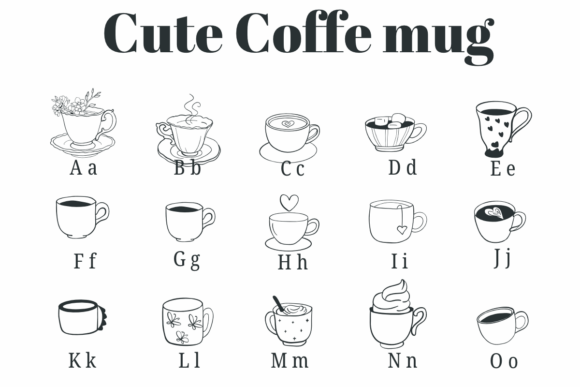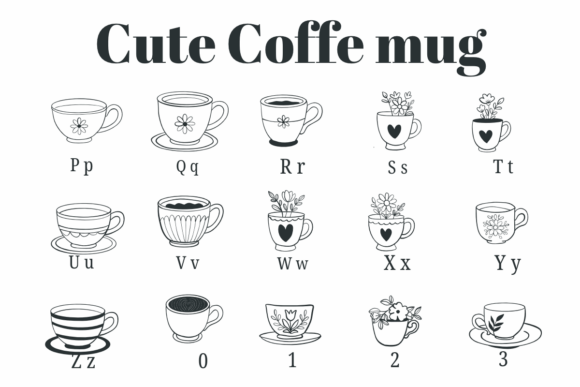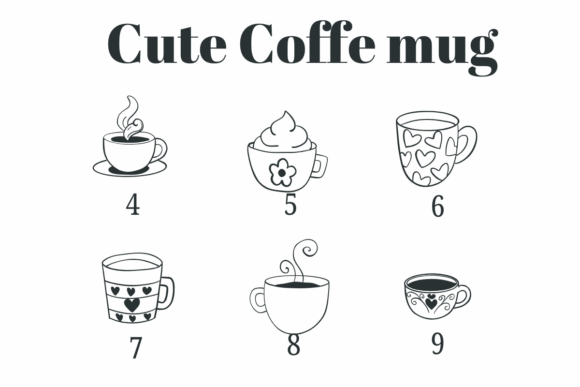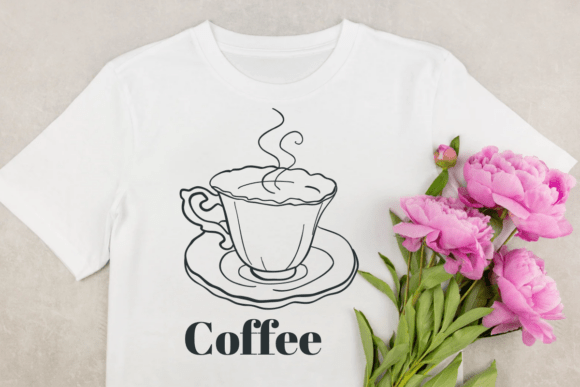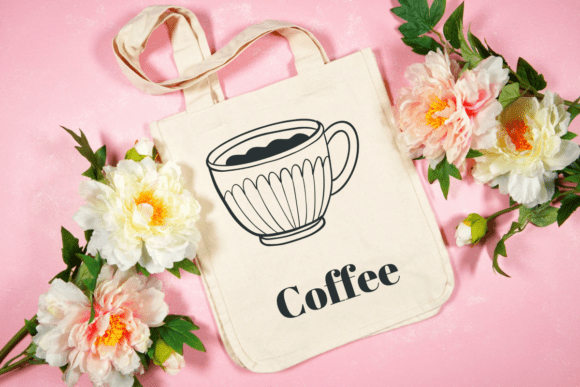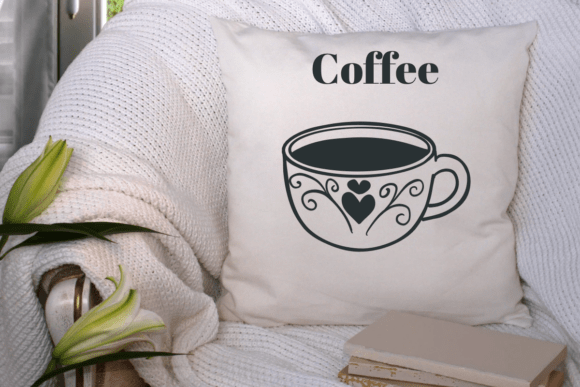
Warm Up Your Designs with the Cute Coffee Mug Font
I’ll never forget the time I was working on a branding project for a cozy coffee shop. My client wanted a font that would evoke the feeling of a warm cup on a chilly morning, but I was struggling to find the perfect fit. That’s when I stumbled upon the Cute Coffee Mug font, a delightful collection of hand-drawn illustrations that replaced standard letters with charming mugs, steaming cups, and ornate teacups. It was love at first sight! ❤️
A Cozy Dingbats Font for Designers and Caffeine Lovers
The Cute Coffee Mug font is a “Dingbats Font” designed to add an instant cozy, artisanal feel to any layout without the need for complex vector software. This font is perfect for cafe owners, caffeine lovers, and designers looking to add a touch of whimsy to their work. With its hand-drawn illustrations, the Cute Coffee Mug font features hearts, flowers, and dainty patterns that will make your designs stand out.
What I Love About the Cute Coffee Mug Font ✨
- ✅ The font is incredibly versatile and can be used for a variety of design projects, from bakery menus to kitchen-themed decor.
- ✅ The hand-drawn illustrations are adorable and add a touch of personality to any design.
- ✅ The font is easy to use and doesn’t require complex vector software.
- ✅ The Cute Coffee Mug font is perfect for creating custom stickers, icons, and decorative borders.
While the Cute Coffee Mug font is amazing, there are a few things to keep in mind:
- 🤔 The font can be a bit limited in terms of flexibility, as it’s designed to work best with specific design elements.
- ⚠️ Some of the illustrations may not work well at small font sizes, so it’s best to use them at larger sizes.
The Designer Inspiration Behind the Cute Coffee Mug Font
The Cute Coffee Mug font was designed with the intention of creating a cozy and inviting feel. The designer, a self-proclaimed coffee lover, wanted to create a font that would evoke the feeling of a warm cup on a chilly morning. With its hand-drawn illustrations and charming glyphs, the Cute Coffee Mug font is sure to bring a touch of warmth and personality to any design.
| Font Name | Cute Coffee Mug Font |
| Author | Suphitchaya |
| What is the Cute Coffee Mug font? | The Cute Coffee Mug font is a “Dingbats Font” featuring hand-drawn illustrations of mugs, steaming cups, and ornate teacups. |
| What can I use the Cute Coffee Mug font for? | You can use the Cute Coffee Mug font for a variety of design projects, from bakery menus to kitchen-themed decor. |
| Is the Cute Coffee Mug font easy to use? | Yes, the Cute Coffee Mug font is easy to use and doesn’t require complex vector software. |